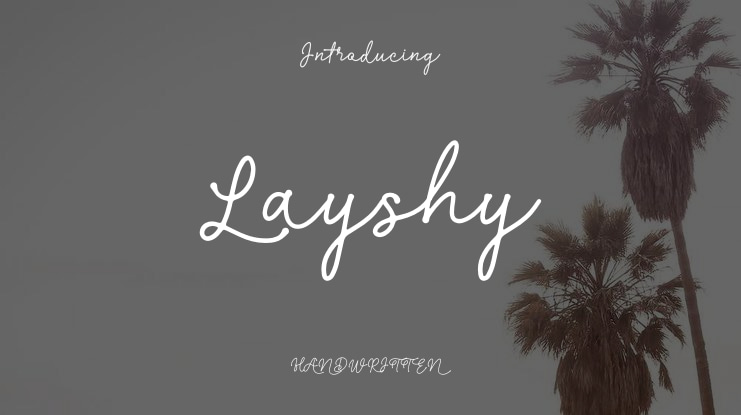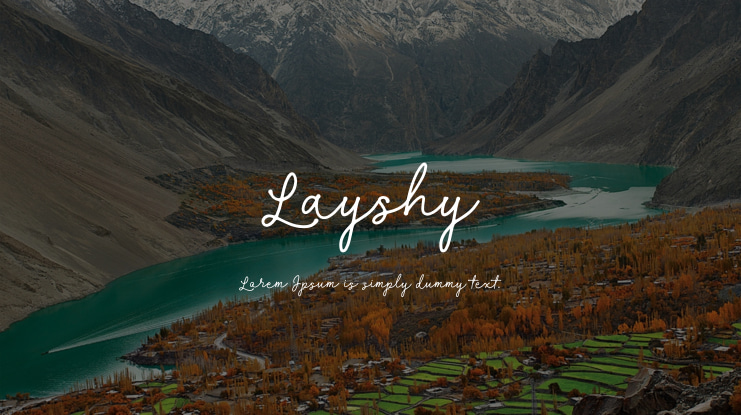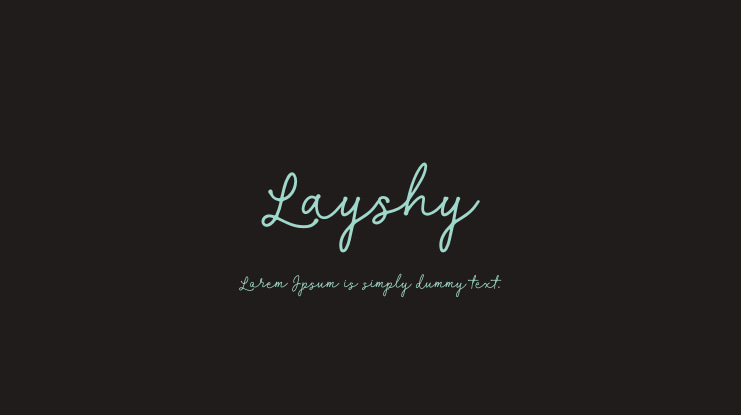
Layshy Font
Layshy | Monoline Script is a versatile font suitable for various projects such as logos, branding, homeware designs, product packaging, quotes, posters, and more. By using this font, you agree to the Product Usage Agreement, which states that it is for personal use only and not for commercial purposes. For commercial use, you can purchase the full version and commercial license from the provided link. Custom licenses are available for corporate use. Donations are appreciated and can be made via the provided PayPal link. Visit our store for more fonts.